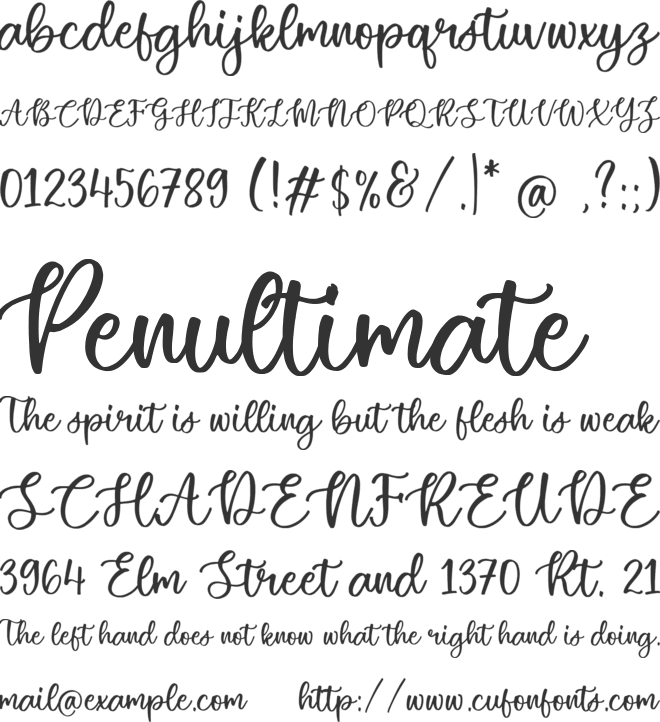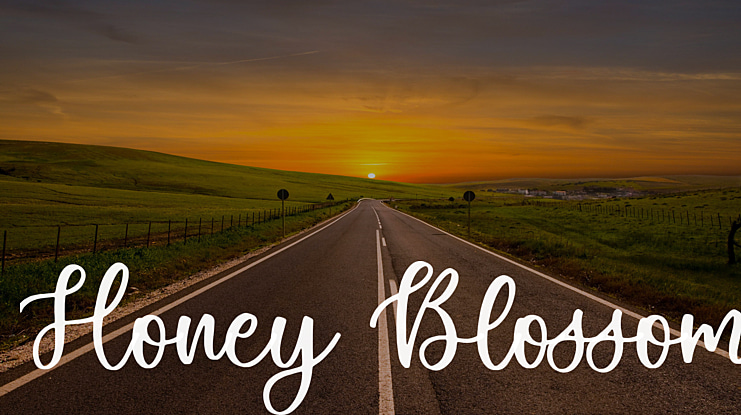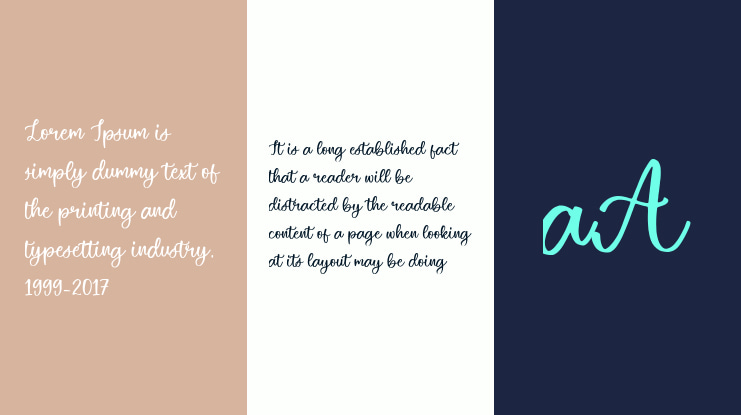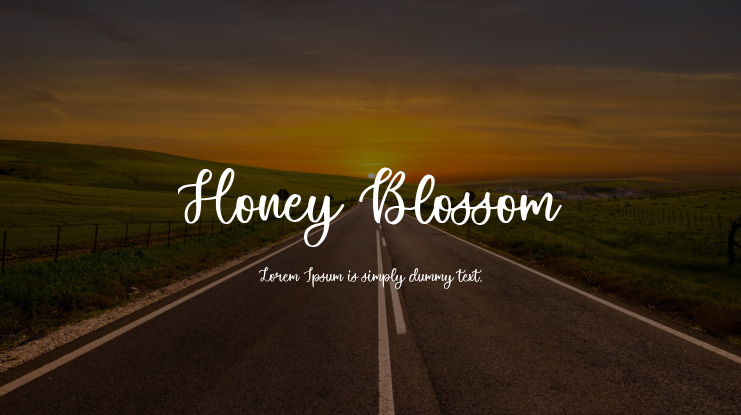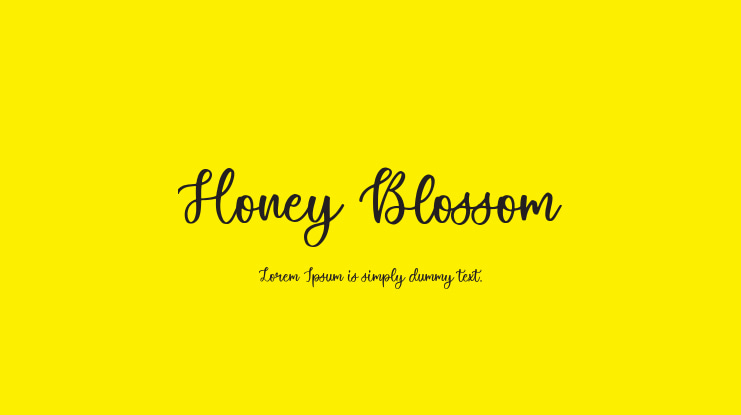
Honey Blossom Font
Introducing the Honey Blossom Modern Calligraphy Font by Balpirick Studio.
Add a personal touch to your design projects with this elegant font. Honey Blossom has a natural, organic feel and a unique character that will enhance any design.
Crafted with care and attention to detail, this versatile font can be used for various design projects, such as logos, branding, invitations, and more. Its modern, handwritten style sets it apart and ensures that it leaves a lasting impression.